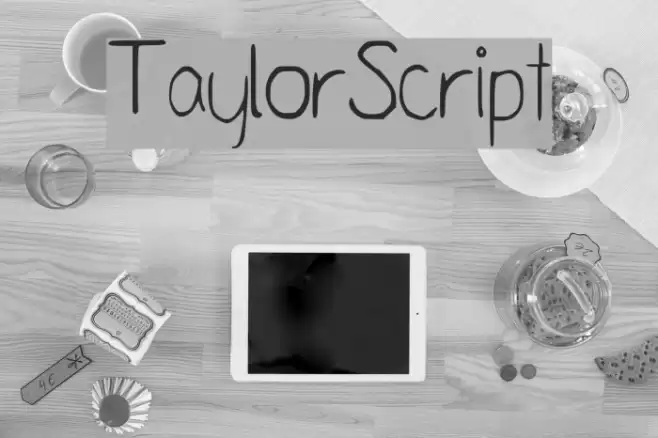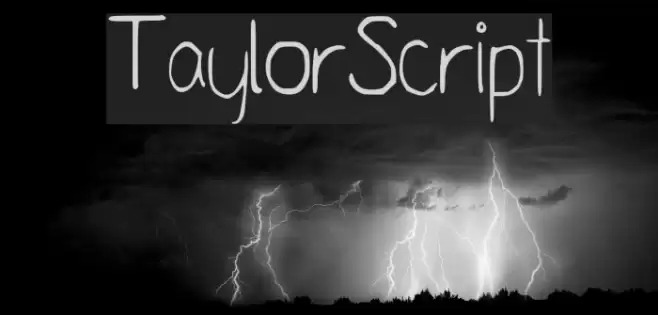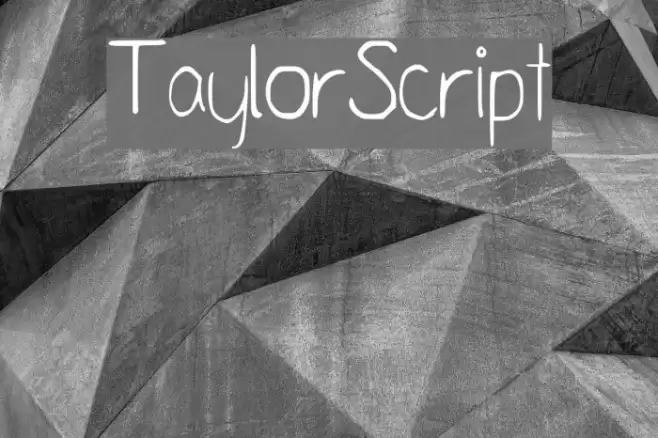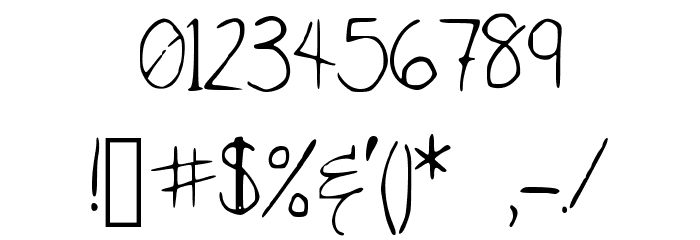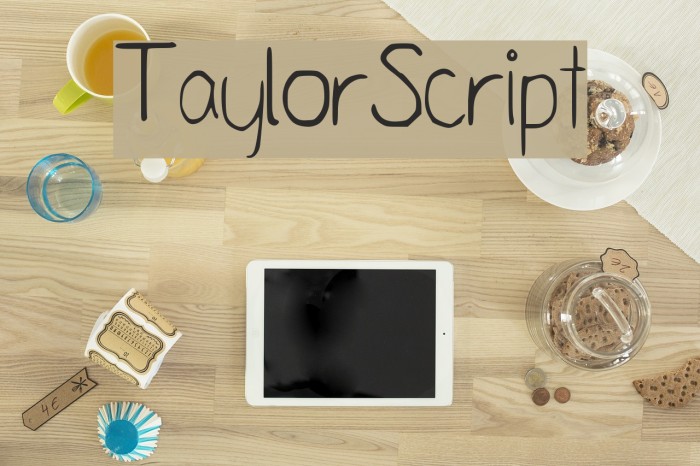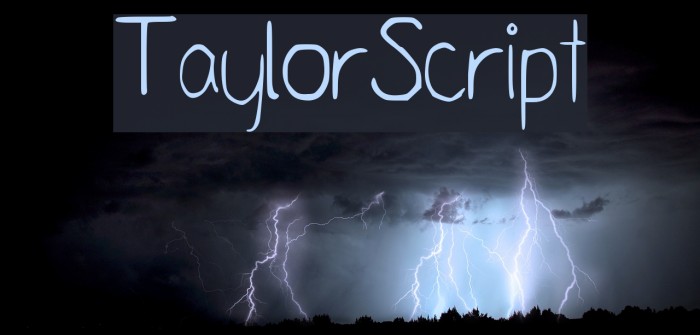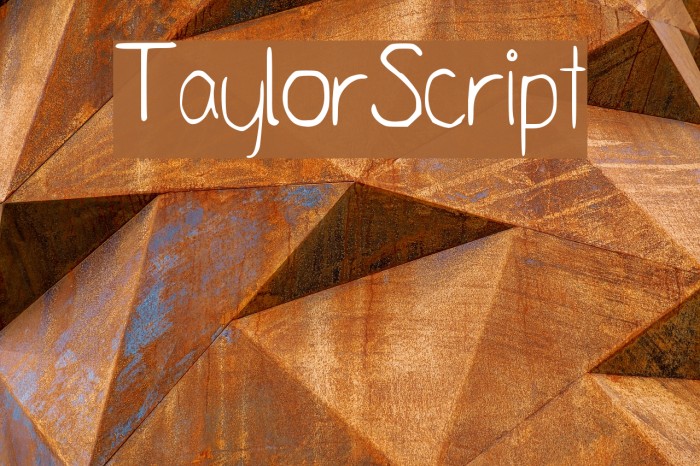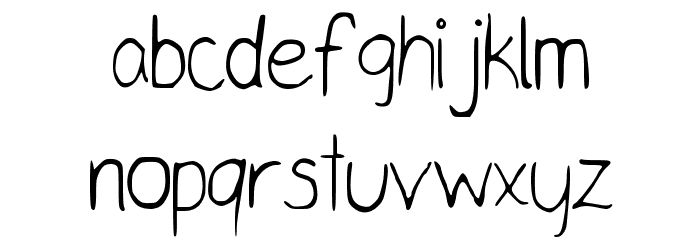
TaylorScript Font
TaylorScript Description
This font features a playful and casual handwritten style, characterized by its irregular strokes and whimsical appearance. The letters have a natural flow, with varying heights and widths that give it a lively and dynamic feel. The uppercase letters are bold and slightly elongated, while the lowercase letters maintain a consistent, yet informal look. The numerals and special characters complement the overall style, adding to its versatility. This font is perfect for projects that require a personal touch or a sense of creativity and fun.
A playful, handwritten font with a casual and whimsical style from Uncategorized fonts.
- Proposed Projects: Ideal for greeting cards, invitations, children's books, and creative branding projects.
- Overall Style: Casual, Playful
- Use Case: Headlines, Informal text, Creative projects